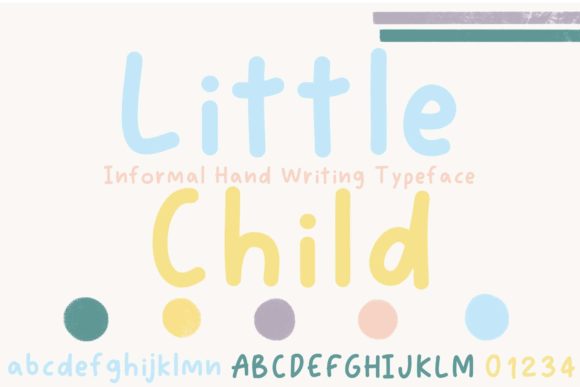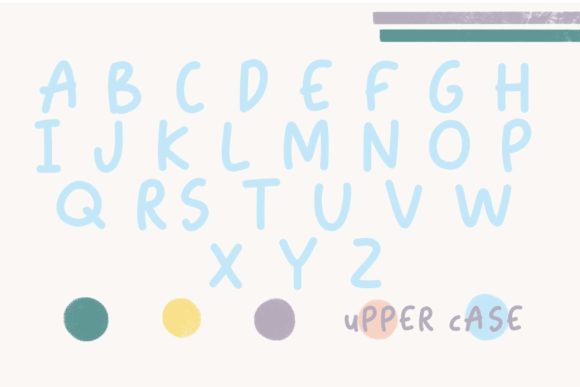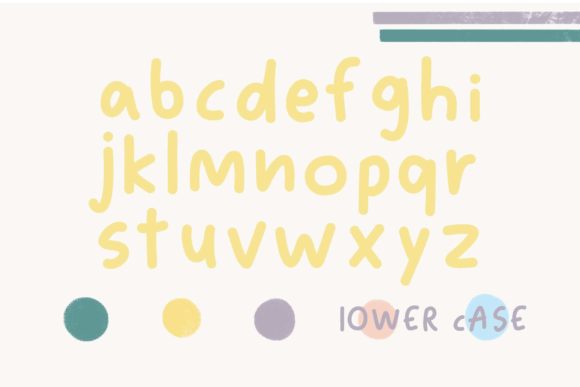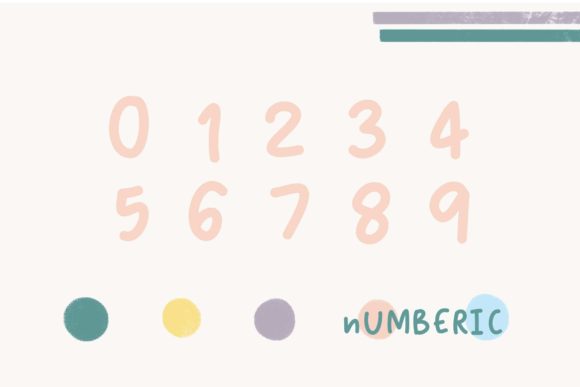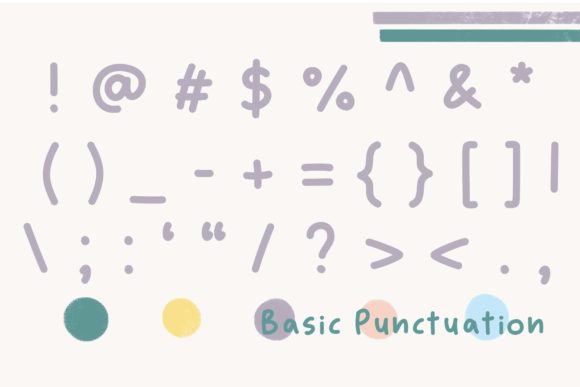
Little Child Font
About Little Child Font
Little Child is a charming handwritten font that captures the playful and innocent spirit of childhood. Its authentic look and feel make it a perfect choice for chalkboard quotes, teaching materials, and any design that requires a touch of whimsy and warmth.
The unique characteristics of Little Child, such as its uneven letterforms and playful imperfections, add a personal and realistic feel to your designs. It replicates the natural variations of handwriting, giving your creations an organic and authentic touch.
This font is particularly well-suited for educational materials, children’s books, nursery decorations, and any project aimed at young audiences. Its handwritten style creates a friendly and approachable atmosphere that appeals to children and brings joy to their learning experience.
Little Child’s versatility extends beyond educational settings. It can also be used for creating greeting cards, invitations, posters, and other designs that evoke a sense of innocence, wonder, and nostalgia. The whimsical nature of the font adds a touch of playfulness to your projects, making them memorable and delightful.
With Little Child, you can tap into the imagination and creativity of childhood. Its authentic look and feel serve as a reminder of the joy and simplicity of early years, bringing a sense of warmth and comfort to your designs.
So, whether you’re designing educational materials, children’s books, or any project that requires a personal and realistic touch, Little Child is a perfect choice. Let its handwritten charm and authenticity infuse your designs with a touch of magic and bring out the inner child in your audience.